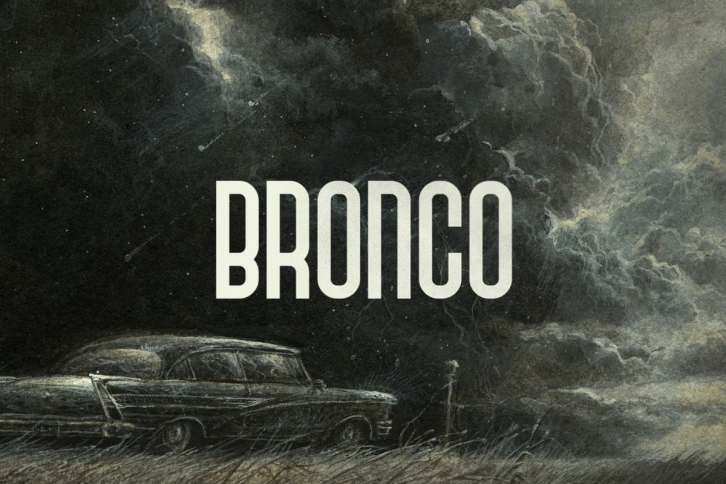
Bronco Typeface is a beautiful font that was designed by Tugcu Design Co.. It's a great choice for designers and creatives who need such a font. It was released on May 25, 2018 and the file size is 21.43 MB. Bronco Typeface may give a more youthful, expressive and casual look to your project. It is a very beautiful, refined, elegant, and high-quality font.